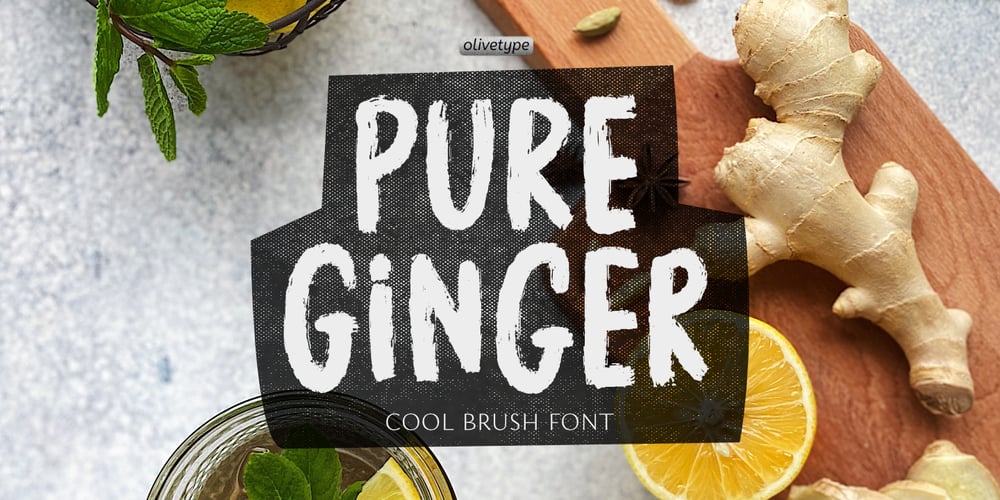
Pure Ginger Font Family was designed by Nurul Hidayani and published by Olivetype. Pure Ginger contains 1 styles and family package options. Pure Ginger is a cool and simple brush textured display font. Casual and a little bit quirky, this font will look outstanding in any context, whether it’s being used on busy backgrounds or as a standalone headline!This font is supporting Multi-Languages, which includes: Afrikaans Albanian Catalan Danish Dutch English Estonian Finnish French German Italian Norwegian Portuguese Spanish Swedish Zulu.Thank You.